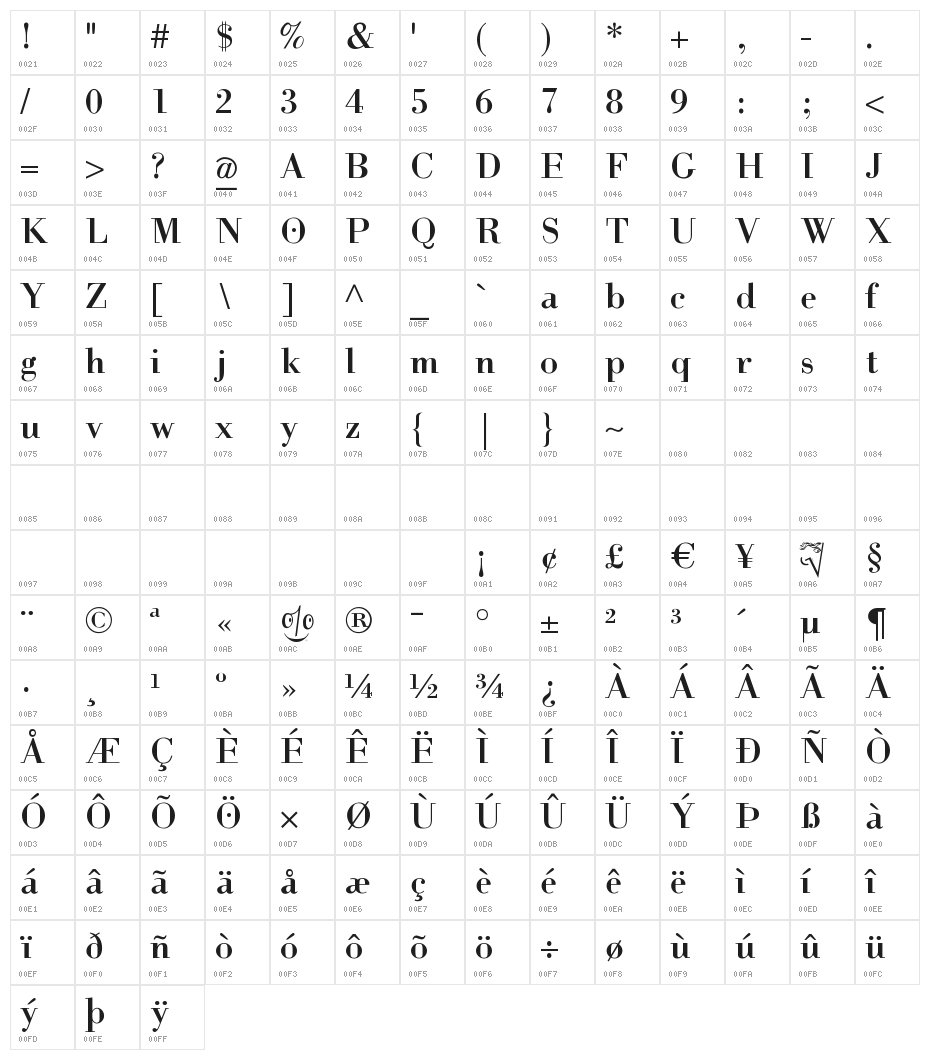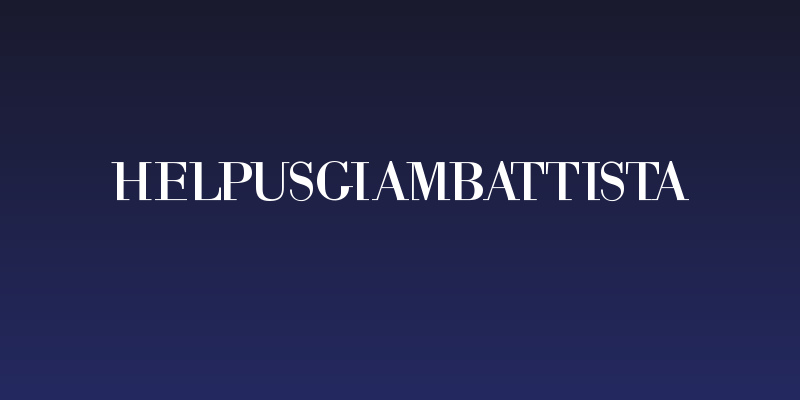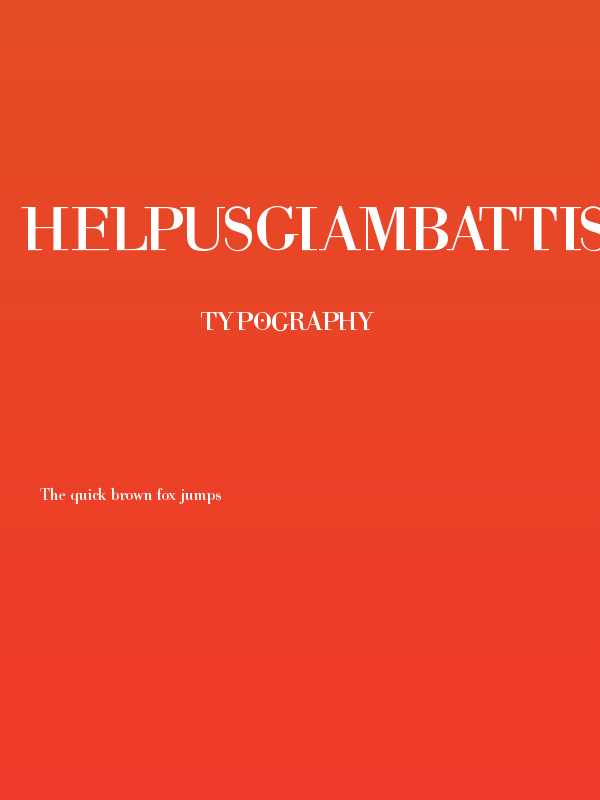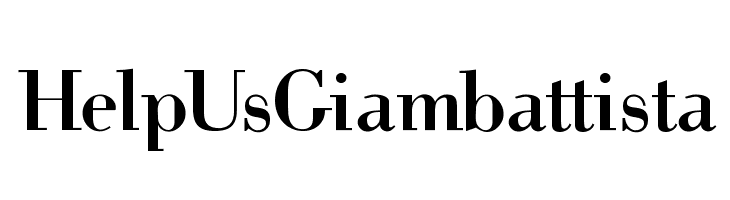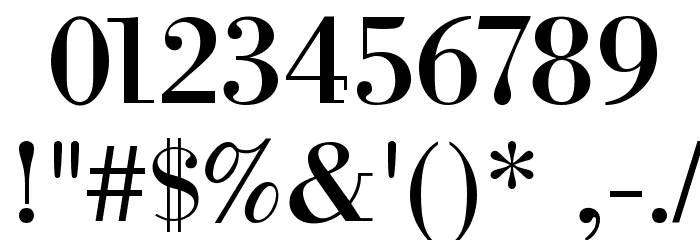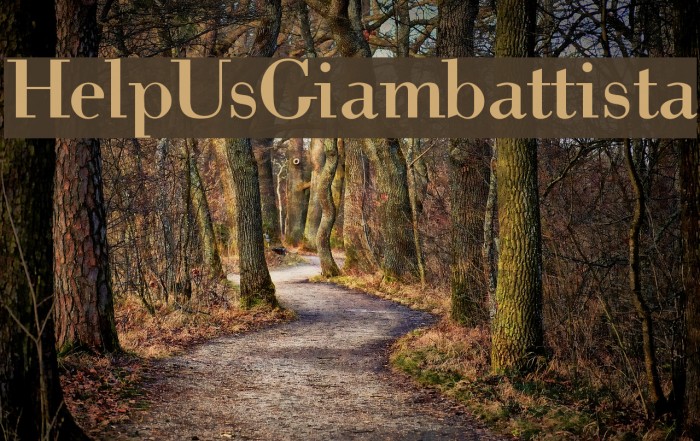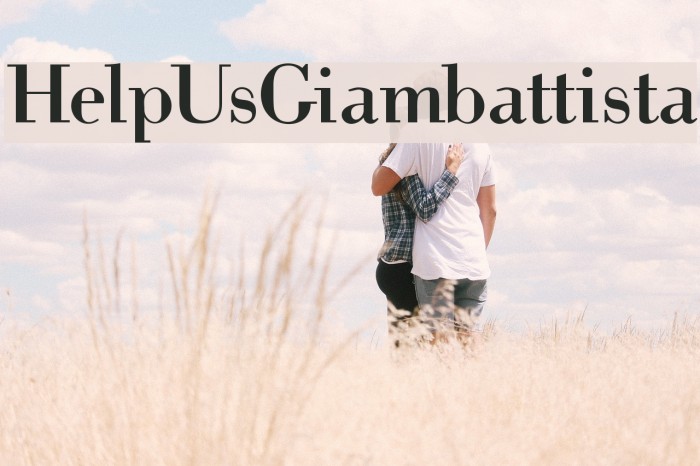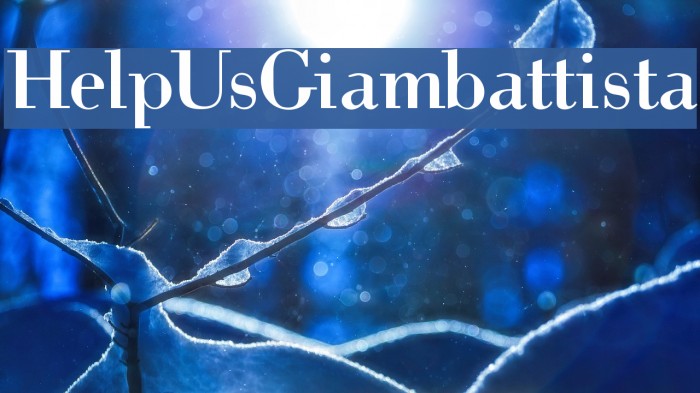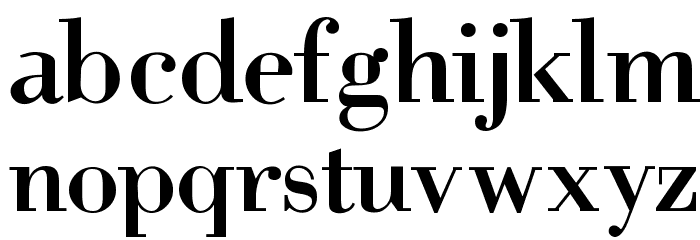
HelpUsGiambattista Font
This font exhibits a classic serif style with high contrast between thick and thin strokes, embodying an elegant and sophisticated appearance. The uppercase letters are bold and commanding, while the lowercase letters maintain a graceful flow with slightly rounded edges. The numerals are proportionate and harmonize well with the overall design. Special characters are crafted with attention to detail, enhancing the font's versatility. This typeface is reminiscent of traditional print styles, offering a timeless aesthetic suitable for a variety of applications.
| Proposed Projects | Ideal for editorial design, luxury branding, book covers, and formal invitations. |